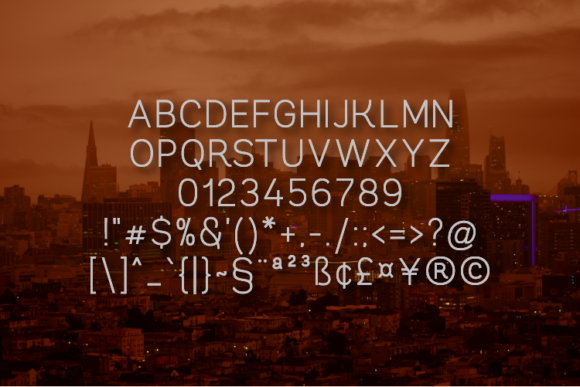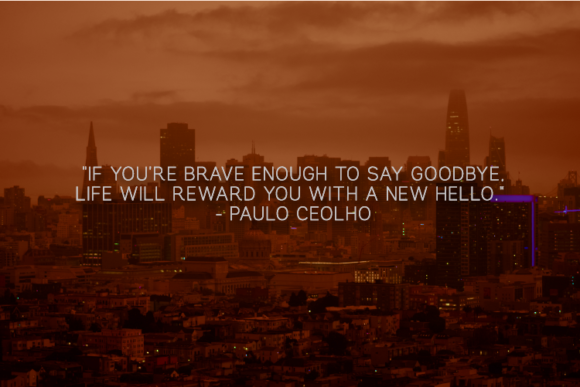
Discover the Beauty of Dolpafa Font: Elevate Your Design Projects with Ease
In the world of typography, finding the perfect font can make all the difference in bringing your design projects to life. If you’re on the hunt for a simple yet versatile sans serif font that can complement any project, look no further than Dolpafa Font. Designed to inspire creativity and enhance your visual creations, Dolpafa is an excellent choice for designers and crafters alike.
What is Dolpafa Font?
Dolpafa is a modern sans serif font that boasts a clean and minimalist aesthetic. Its simplicity makes it incredibly versatile, allowing it to seamlessly integrate into a wide range of design projects. Whether you’re working on a logo, invitation, heading, or any other visual element, Dolpafa is up to the task.
Key Features of Dolpafa Font
- Simple and Versatile: Dolpafa’s clean design makes it perfect for a variety of projects, from elegant headings to stunning logos.
- Sans Serif: The font’s sans serif style gives it a modern and sleek look that’s perfect for contemporary designs.
- Ease of Use: Dolpafa is incredibly easy to use, making it accessible to designers of all skill levels.
- Highly Customizable: With Dolpafa, you can experiment with various sizes, colors, and styles to create unique visual elements.
How to Use Dolpafa Font in Your Design Projects
The possibilities are endless when it comes to using Dolpafa in your design projects. Here are a few ideas to get you started:
- Create Beautiful Headings: Use Dolpafa to craft stunning headings that capture attention and add a touch of elegance to your designs.
- Design Gorgeous Invitations: Add a personal touch to your invitations with Dolpafa’s clean and modern aesthetic.
- Develop Stunning Logos: Create memorable logos that make a lasting impression with Dolpafa’s versatile design.
- Enhance Your Branding: Use Dolpafa to create a consistent visual identity across your branding materials, from business cards to website headers.
Why Choose Dolpafa Font?
With so many fonts available, why choose Dolpafa? Here are a few compelling reasons:
- Unique and Modern Design: Dolpafa’s sleek design sets it apart from more traditional fonts, giving your designs a fresh and modern look.
- Easy to Read: The font’s clean lines and simple style make it easy to read, even at smaller sizes.
Tips for Getting the Most Out of Dolpafa Font
To maximize the potential of Dolpafa, keep the following tips in mind:
- Experiment with Sizes and Colors: Don’t be afraid to try out different sizes and colors to find the perfect combination for your design.
- Pair with Other Fonts: Dolpafa pairs well with a variety of other fonts, so feel free to experiment with different combinations.
- Use it Consistently: To create a cohesive visual identity, use Dolpafa consistently across your design projects.
Dolpafa Font is a versatile and modern sans serif font that’s perfect for designers and crafters looking to elevate their design projects. With its clean design, ease of use, and high customizability, Dolpafa is an excellent choice for a wide range of applications. Whether you’re creating headings, invitations, logos, or more, Dolpafa is sure to become a go-to font in your design arsenal.